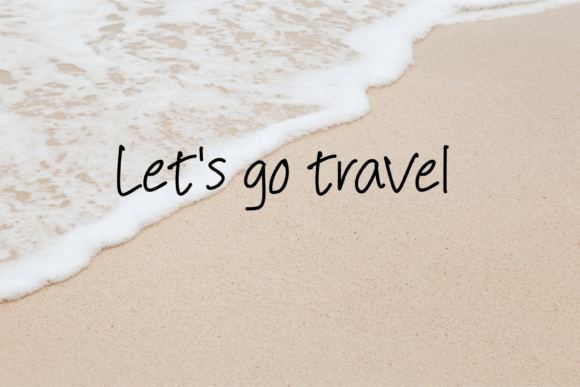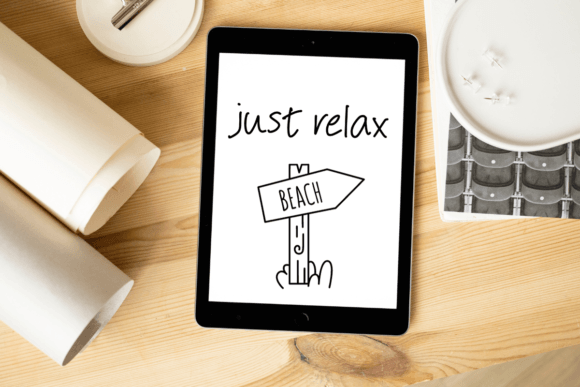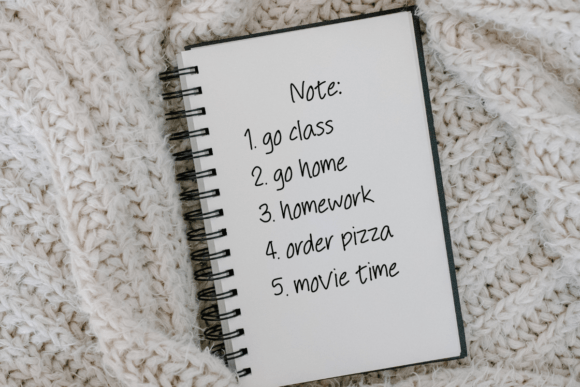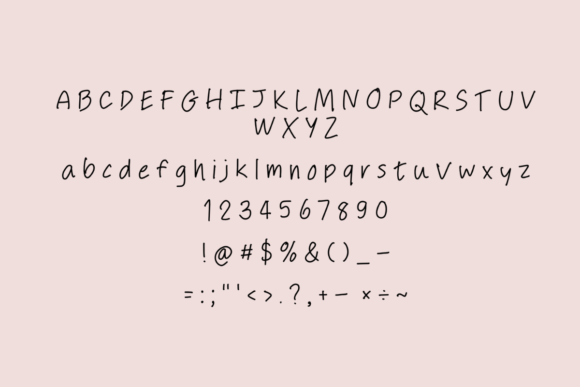
Introduction to Macarena Font
Do you remember that moment when you stumbled upon the perfect design element that made your creative project stand out from the rest? For designers, finding the right font can be the game-changer that elevates a simple design to a stunning work of art. And today, we’re excited to introduce you to the charming Macarena Font, a delightful display font that’s sure to bring a smile to your face.
With its cute and playful style, the Macarena Font is perfect for creating beautiful content that transports your audience to a world of relaxation and serenity. Whether you’re working on a travel brochure, a craft project, or a social media post, this font is sure to add a touch of whimsy and charm. And the best part? You can download it for free, making it an invaluable resource for designers on a budget.
Macarena Font Key Features
- High-Quality Design Resource: Macarena Font is a premium font designed for creative projects, offering a unique and stylish aesthetic.
- Transparent Background: The font’s transparent background allows for easy layering and blending with other design elements.
- High Resolution: The font is designed at a high resolution (300 DPI), making it suitable for large-scale designs and print materials.
- Unique Characteristics: Macarena Font features a distinctive, hand-drawn style with intricate details, setting it apart from other fonts in its category.
- High-Quality Images: The font’s images are crisp and clear, ensuring that your designs look professional and polished.
Honest Review: Macarena Font
I recently stumbled upon the Macarena Font, and I have to say, it’s been a game-changer for my creative projects. This free download has been a lifesaver, offering a high-quality design resource that’s both versatile and visually appealing.
- ✨ The Macarena Font is incredibly easy to use, with a transparent background that allows for seamless integration with any design.
- ✨ The font’s high-quality design ensures that it looks great in a variety of contexts, from digital to print.
However, I do have to mention a few limitations:
- ⚠️ The font is not available in as many languages as some other popular fonts.
- ⚠️ Some users have reported issues with the font’s consistency across different platforms.
Overall, I’m thoroughly impressed with the Macarena Font. Its unique blend of style and functionality makes it a valuable addition to any designer’s toolkit. If you’re looking for a high-quality design resource that won’t break the bank, I highly recommend giving the Macarena Font a try.
Macarena Font
The Macarena Font is a versatile and eye-catching design resource ideal for various creative projects. Its high-quality design makes it perfect for use in digital and print media.
Tips for Getting the Most Out of Macarena Font
Experiment with different font sizes, colors, and combinations to achieve the desired look. Use the font in conjunction with other design elements, such as images or shapes, to create visually appealing designs. Consider using the font with a transparent background to add depth and dimension to your designs.
Common Use Cases for Macarena Font
The Macarena Font is suitable for various creative projects, including logos, graphics, presentations, documents, and social media graphics. Its high-quality design and versatility make it an excellent choice for designers and non-designers alike.